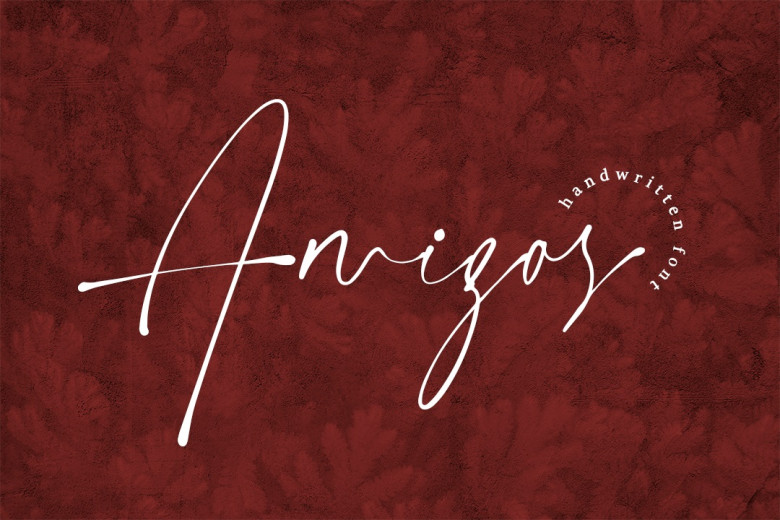
Amigos Signature Font
Amigos is natural strong & classy signature script font. With elegant and classy handwritten styles Amigos will complement your design projects such as business cards, invitations, titles, mockups, etc. Make sure you have this font and make your design even more stunning!
Amigos Signature Script Font